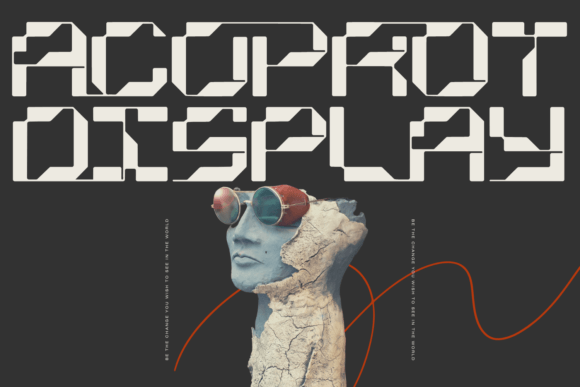
Unleash the captivating power of Acoprot Display Font, a digital masterpiece that will ignite your creative spark! Step into a realm of visual brilliance where imagination knows no bounds. This pixel-style, grid-based typeface is a symphony of precision and playfulness, crafted to turn heads and leave an indelible mark.
Experience the allure of the unexpected as each character dances playfully with an intentional offset, creating an alluring "glitch" aesthetic. Acoprot Display Font is not merely a font; it's an invitation to embrace the extraordinary. Its simplicity invites contemplation, while its attention to detail whispers of artistic mastery.
With Acoprot Display Font by your side, your creative endeavors will soar to new heights. Whether you're a seasoned designer or just starting your artistic journey, this font will elevate your projects with effortless style. Let your imagination run wild as you craft captivating logos, eye-catching headlines, and unforgettable branding that will resonate with your audience.
Don't settle for ordinary fonts that fade into the background. Embrace the transformative power of Acoprot Display Font. It's the perfect choice for those who dare to stand out, to make a statement, and to leave a lasting impression.
Join the creative revolution and experience the magic of Acoprot Display Font today. Let this extraordinary typeface be your muse, igniting your imagination and empowering you to create visual wonders that will captivate and inspire.